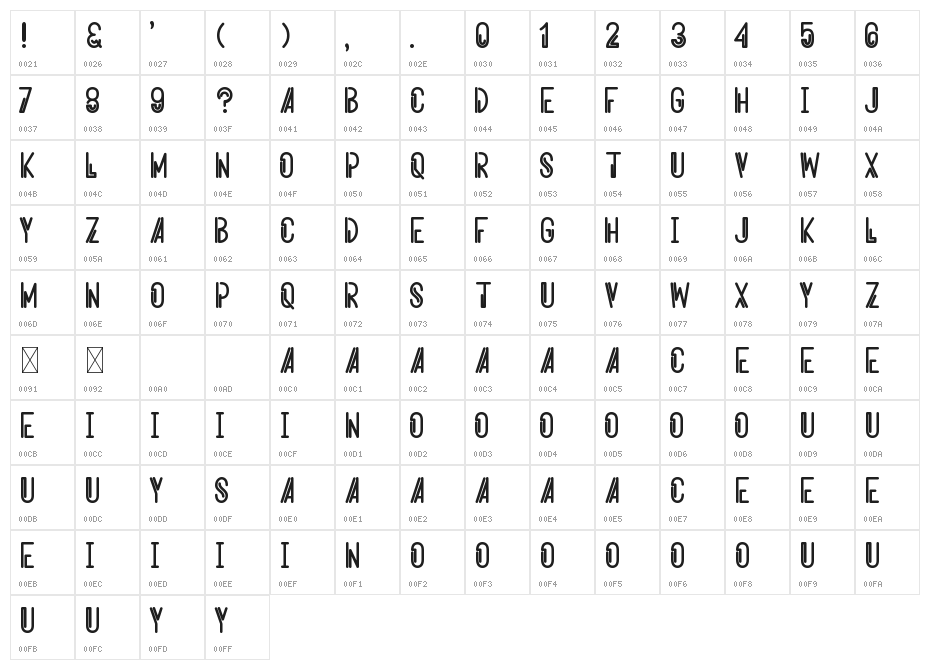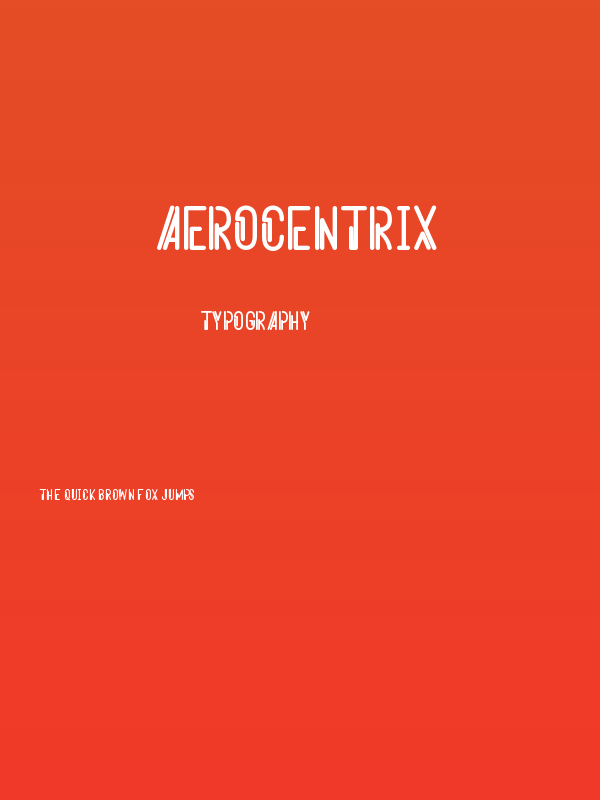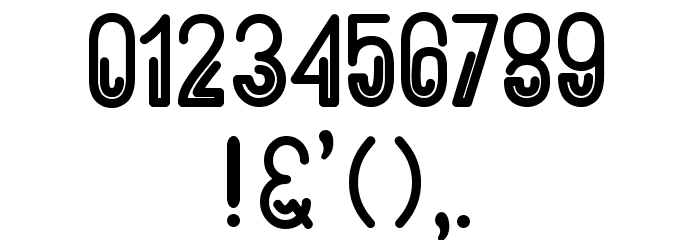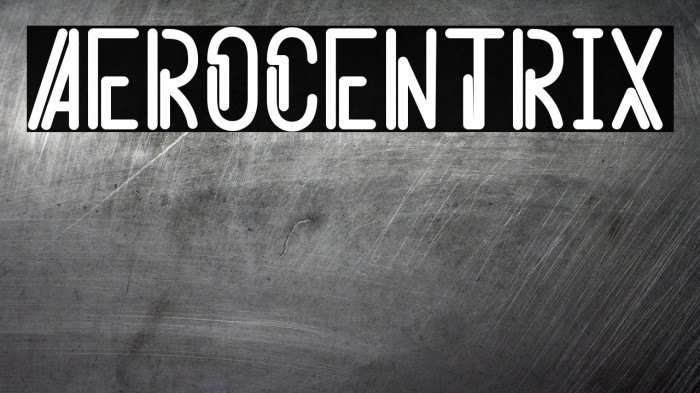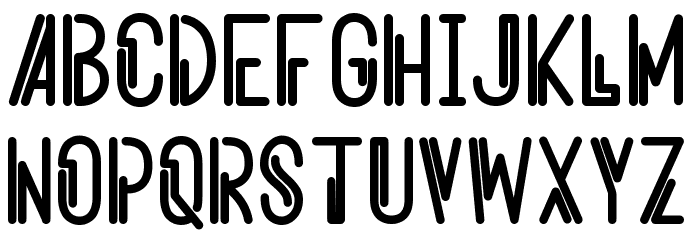
Aerocentrix Font
Aerocentrix Description
This font features a bold and modern design with a unique geometric style. The characters are constructed with clean lines and a consistent stroke width, giving it a futuristic and industrial feel. The uppercase letters are particularly striking, with angular and rounded elements that create a dynamic visual impact. The numbers and special characters maintain the same design ethos, ensuring uniformity across all glyphs. This font's distinct appearance makes it suitable for projects that require a contemporary and eye-catching typeface.
| Proposed Projects | Ideal for branding, posters, and digital media that require a modern and bold typeface. |